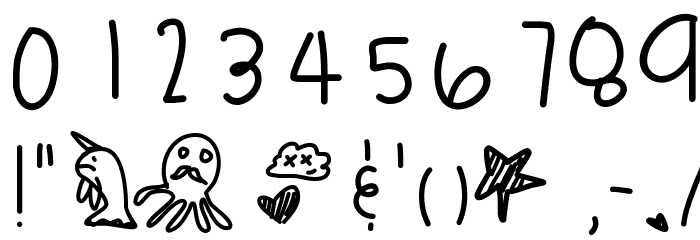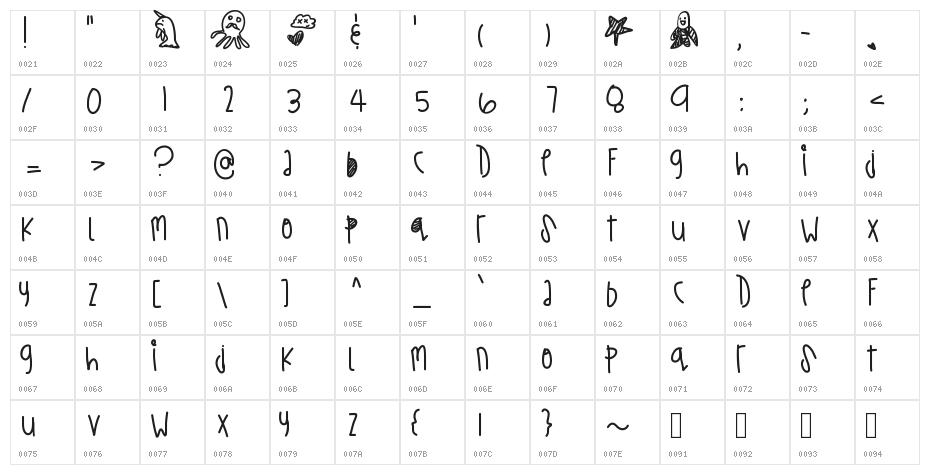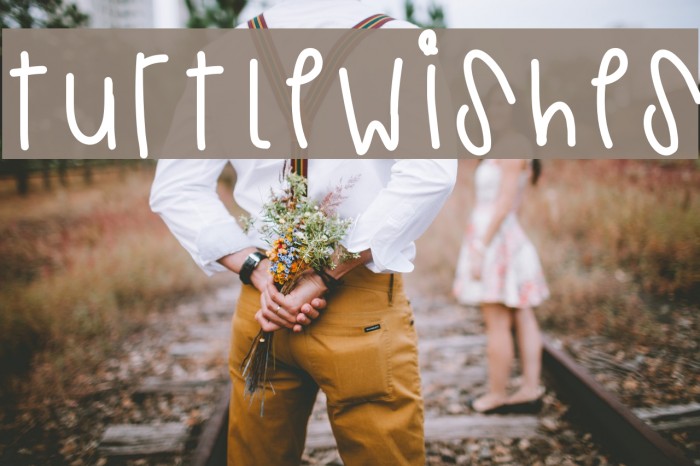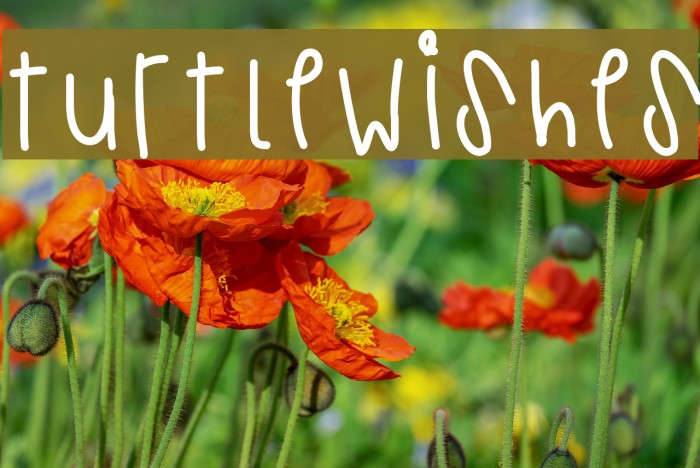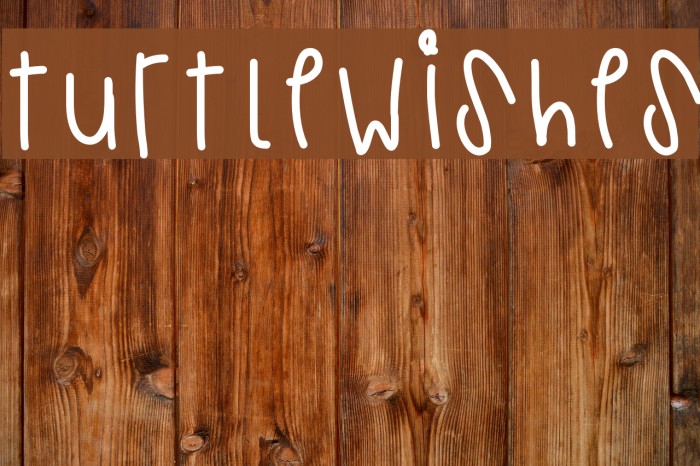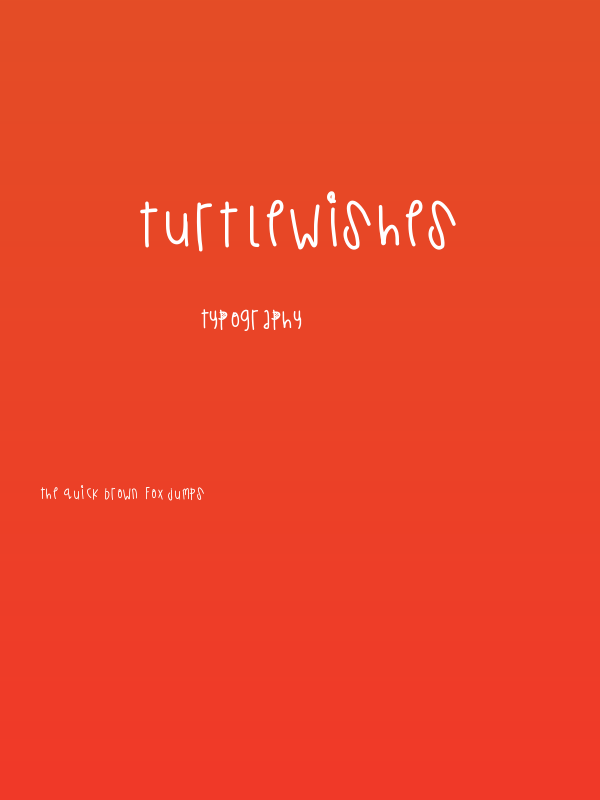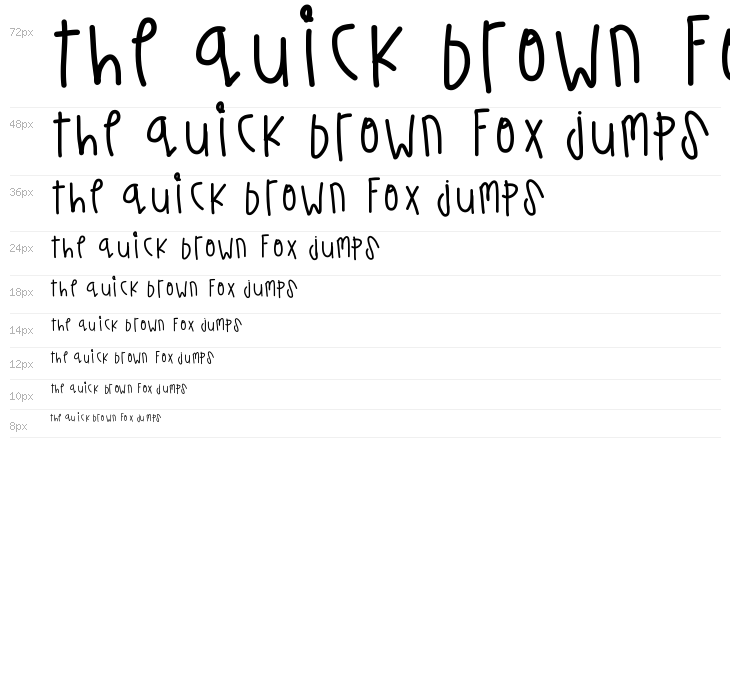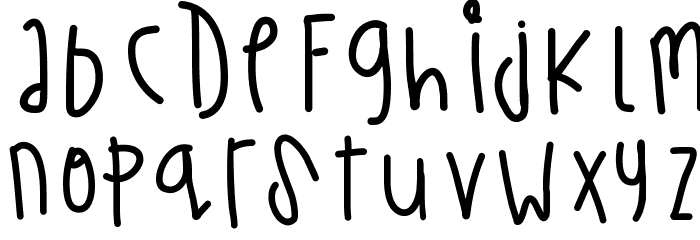
TurtleWishes Font
TurtleWishes Description
This playful and whimsical font features a handwritten style with a casual and friendly appearance. The letters are characterized by their uneven strokes and slightly irregular shapes, giving them a charming, organic feel. The uppercase and lowercase letters maintain a consistent style, with rounded edges and a slight tilt that adds to the font's informal nature. The numbers and special characters follow the same playful design, making them suitable for creative and fun projects. The overall look is approachable and light-hearted, perfect for adding a touch of personality to any design.
| Proposed Projects | Ideal for children's books, greeting cards, playful branding, and creative social media graphics. |